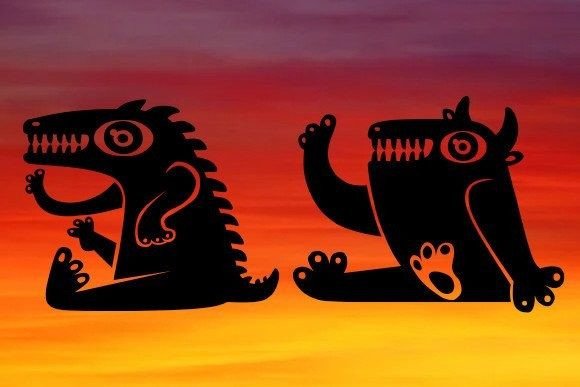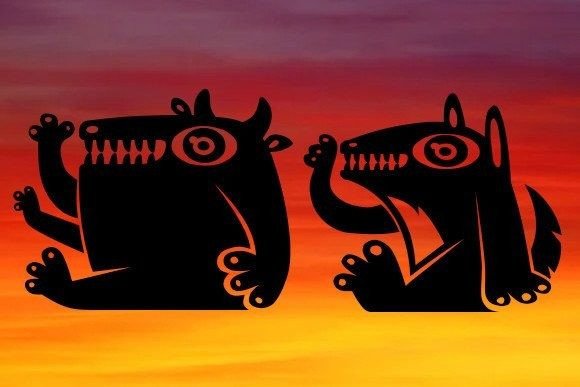
Introduction to Loomad Font
As a designer, there’s nothing quite like the thrill of brainstorming a new creative project. The blank canvas stares back at you, begging for inspiration. That’s when the magic happens, and your imagination runs wild with possibilities. But sometimes, all it takes is the right design resource to spark that creative flame. Enter the Loomad Font – a high-quality dingbat that brings cartoon creature illustrations to life.
With its transparent background and versatile design, the Loomad Font is a valuable addition to any designer’s toolkit. Whether you’re crafting flyers, banners, or posters, this font is sure to add a playful touch that captures attention. And the best part? It’s available for free download, making it an accessible resource for designers of all levels.
Key Features of Loomad Font
- High-quality design for creative projects, making it a valuable design resource for artists and designers.
- Unique and creative design, making it perfect for those looking to add a touch of personality to their projects.
Honest Review: Loomad Font
I recently stumbled upon the Loomad Font, and I must say it’s a game-changer for any creative project. This high-quality font is perfect for designers who want to add a touch of sophistication to their designs.
- ✨ Unique and creative design
- ✨ High-quality glyphs
- ✨ Transparent background, making it easy to use with any design
- ⚠️ Limited font size options
- ⚠️ Not ideal for projects that require a lot of bold or italic text
Overall, I’m impressed with the Loomad Font. While it may not be perfect for every project, it’s a valuable addition to any designer’s toolkit. If you’re looking for a high-quality, free font that’s perfect for creative projects, I highly recommend giving the Loomad Font a try.
The Loomad Font is a versatile, high-quality design resource ideal for creative projects. With its transparent background and unique style, it’s perfect for designers and artists looking to add a touch of elegance to their work.
For the best results, use the Loomad Font in conjunction with other design elements that complement its unique style. You can also experiment with different font sizes and colors to create a visually appealing design.
The Loomad Font is ideal for use in a variety of creative projects, including logos, business cards, and website headers. It’s also a great choice for designers working on high-end marketing materials or branding campaigns.